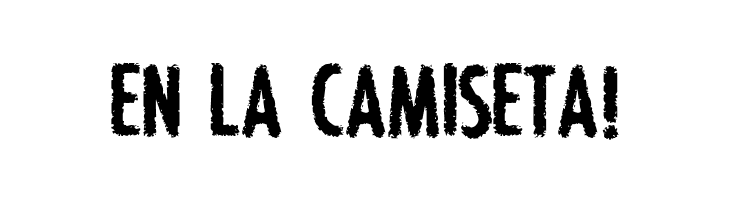
Spark Plug Serif DEMO Regular Font
- Font: Spark Plug Serif DEMO Regular
( Fonts by pOPdOG fONTS - Dimitris Kolyris - popdog_fonts.tripod.com Commercial Fonts Font )
A bold, textured font with a hand-painted, dynamic style.